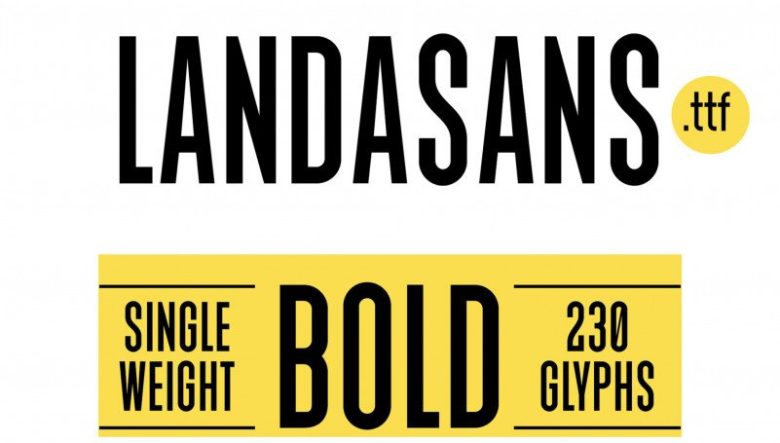
Landasans Free Font
Thank you for looking Landasans Font. This is a minimal and modern typeface for headlines, big text, branding, logotypes & display usage. It’s an elegant typeface of contrast. It offers a modern take of the old didoe genre, confidently playing with extremes of thick strokes and whisper thin curves.
Super clean and minimal and perfect for modern design. The filled and outlined versions pair well next to each other and it also pairs well with script fonts. This font works great for branding, logos, headlines, business cards, t-shirts…you name it!